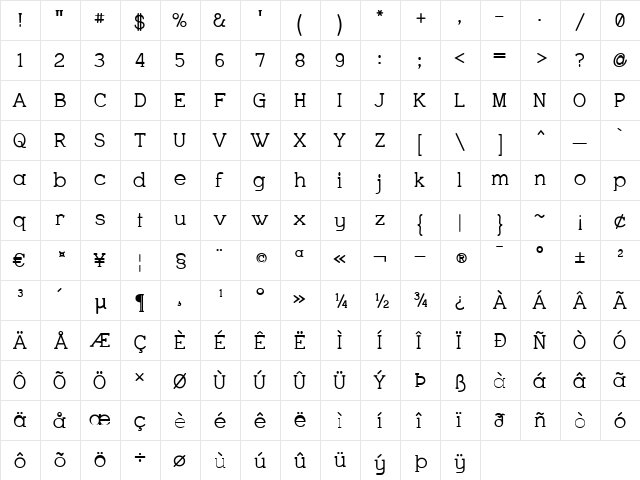
Charrington SemiBold Regular
| Designer | Graham Meade |
Design Context for Charrington SemiBold Typeface
Charrington SemiBold takes a measured approach to typography — its balanced proportions and neutral character make it a reliable workhorse for both digital and print work. Its bold stroke weight gives it real presence on the page.